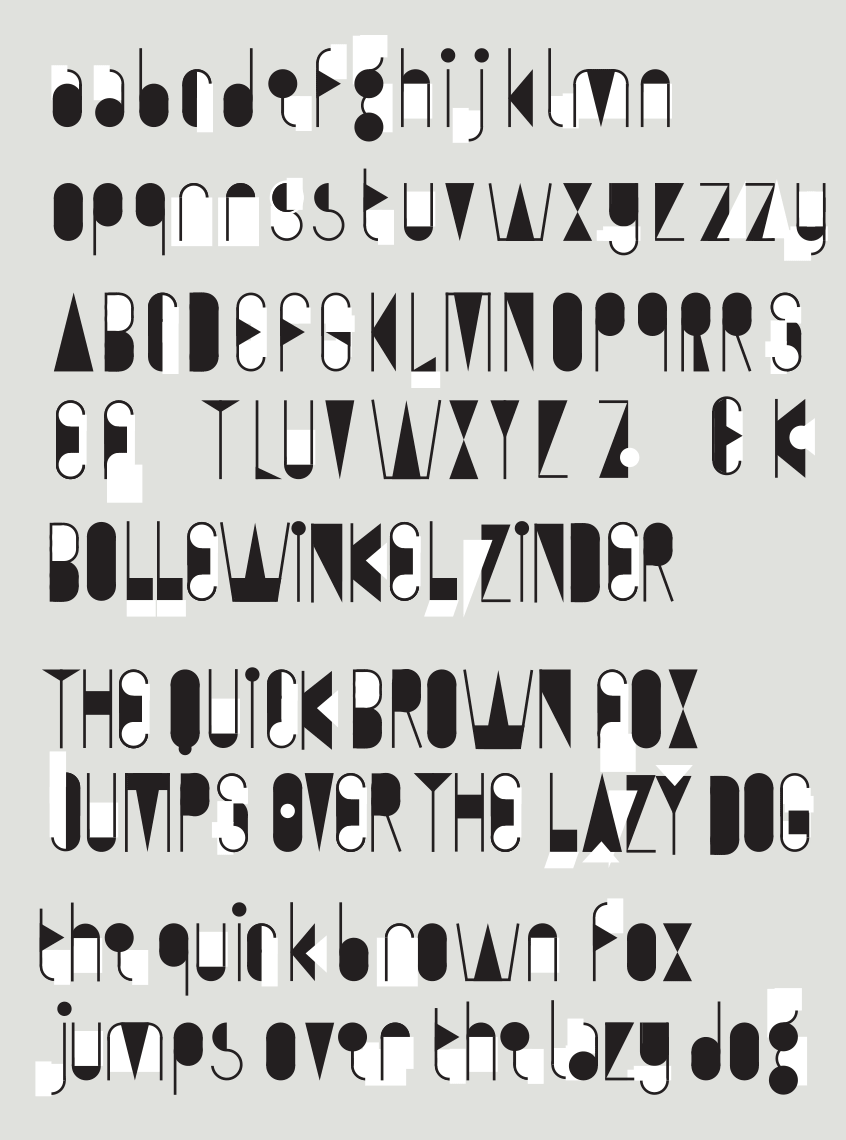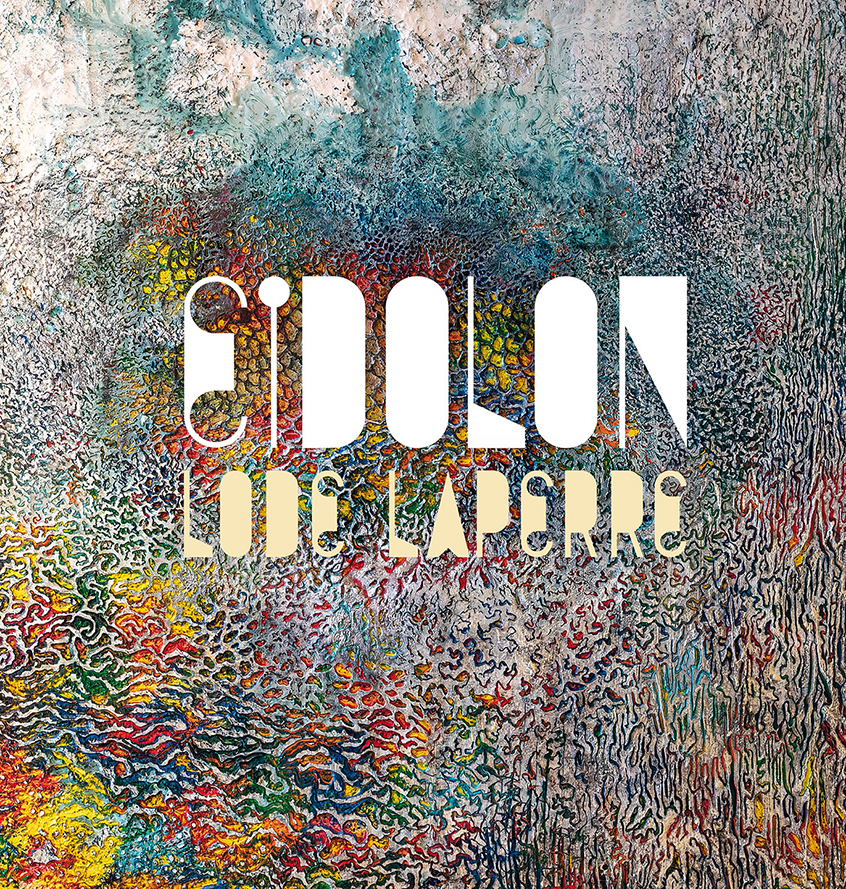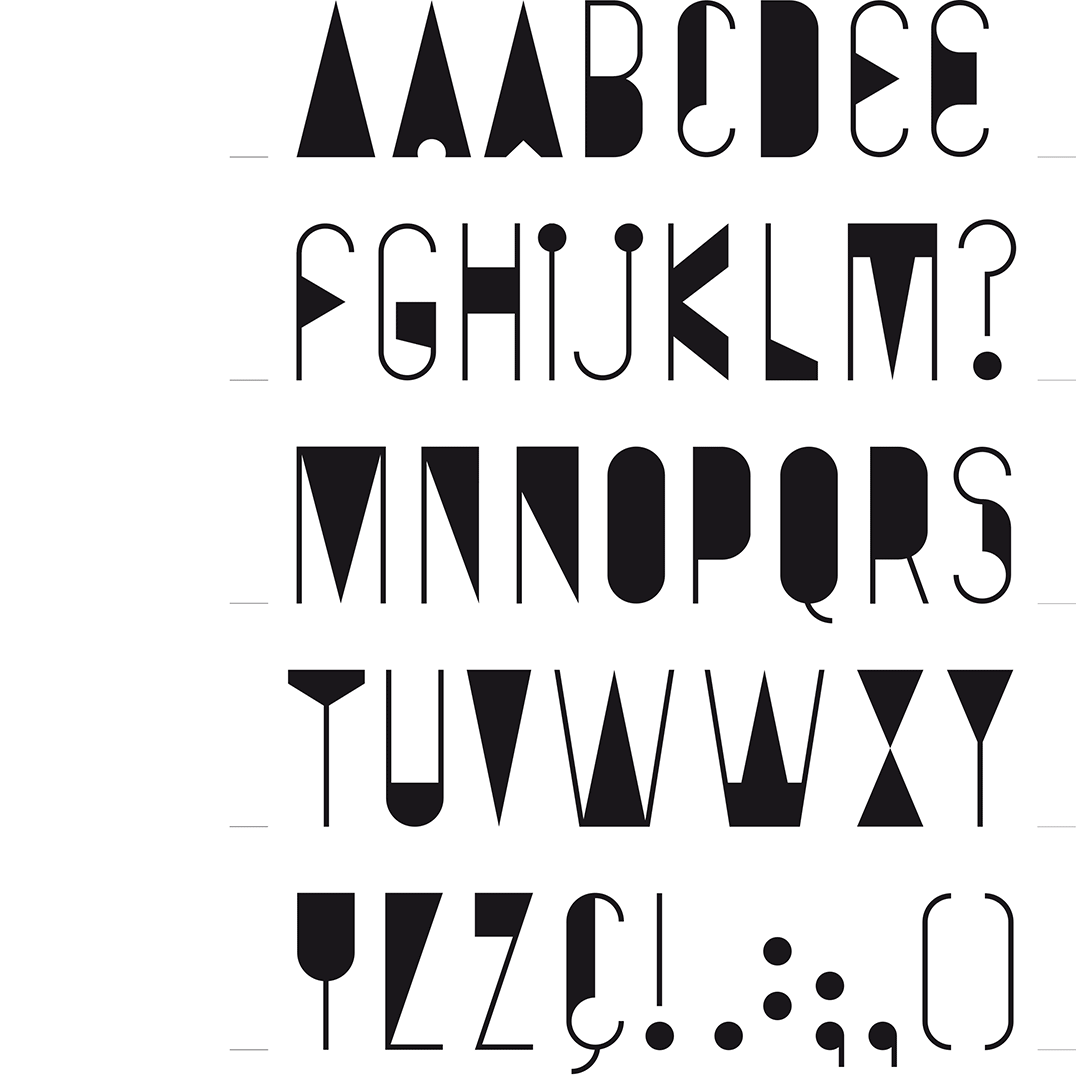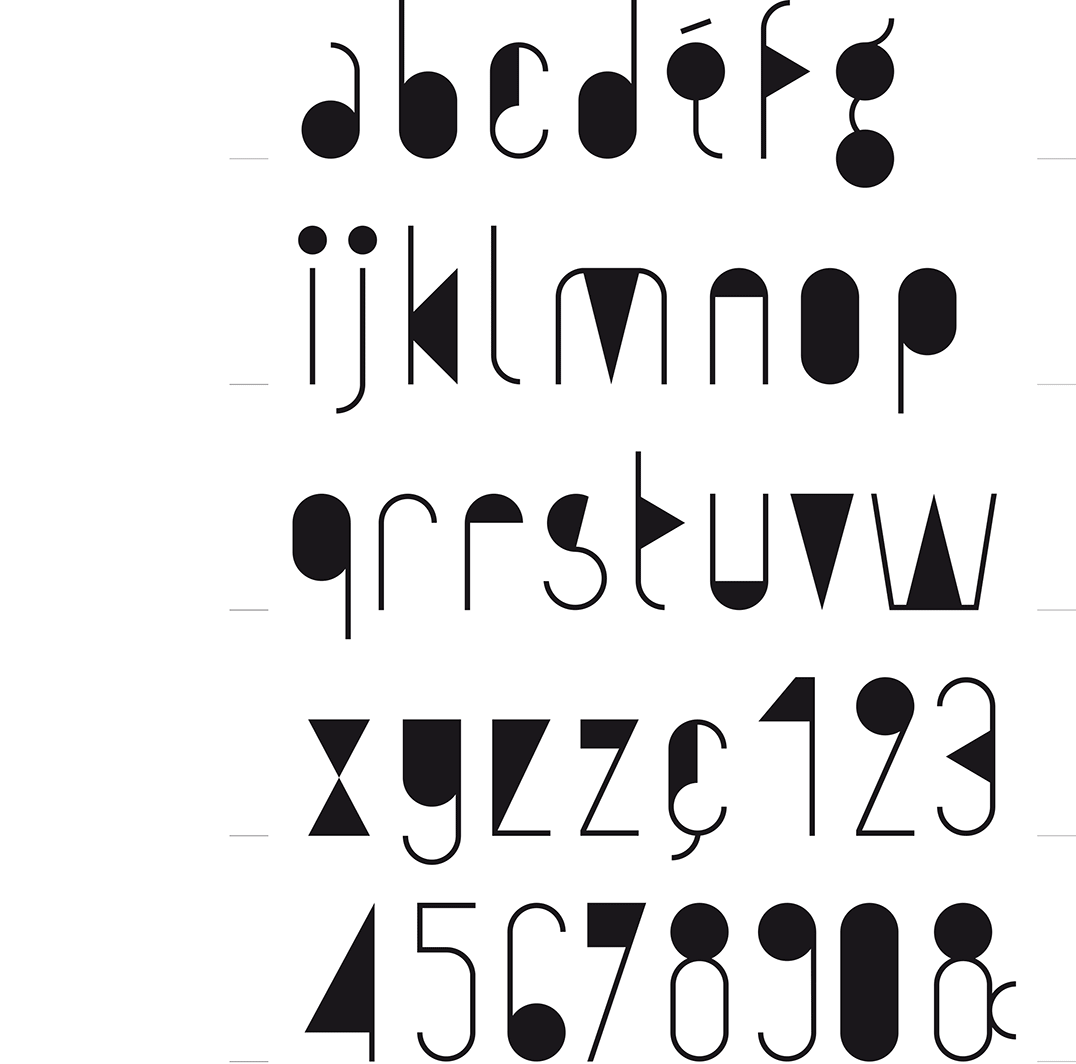
[2021] As often happens, in between assignments I was doodling on a corner of a sheet of paper. I drew circles and put tails on them, and soon these musical notes became letters in lower case. I composed a few words to see how the proportions worked. I arrived at a light-dark game of heavy surfaces and fine lines. The playful contrast between the two appealed to me. I quickly set aside my assignments to continue playing. Just like its name 'Yukoi', this font breathes an Oriental atmosphere.